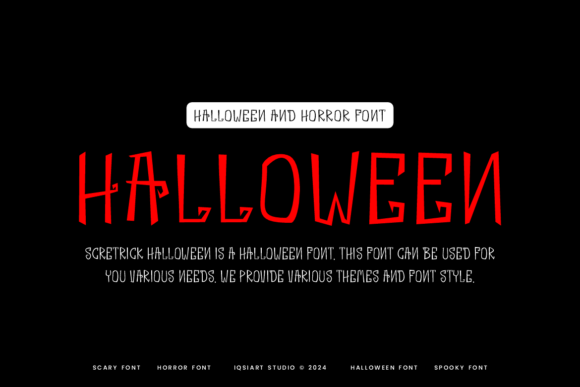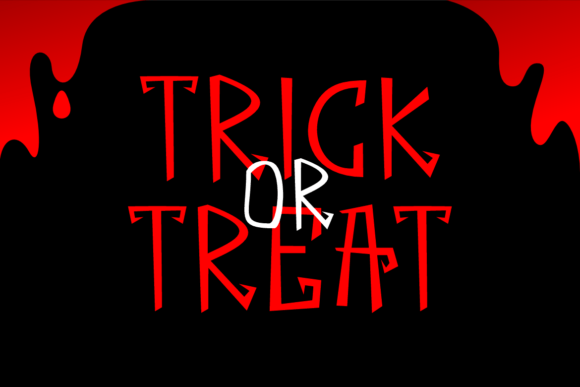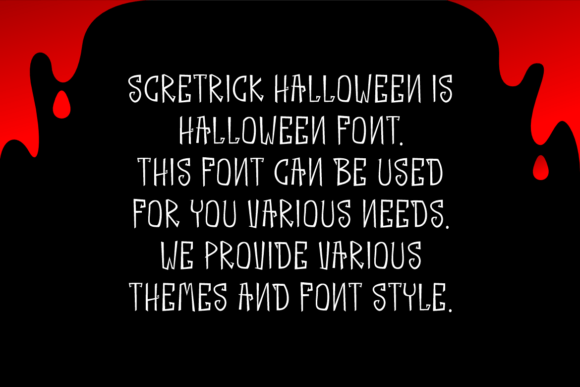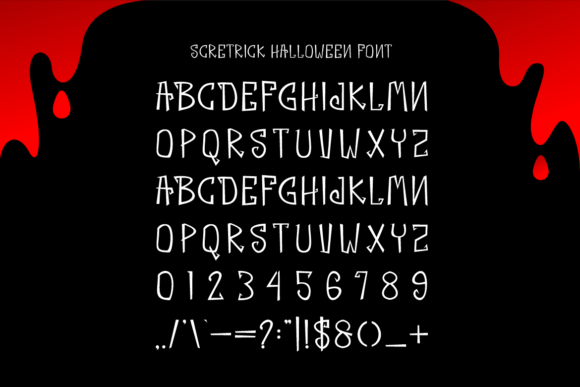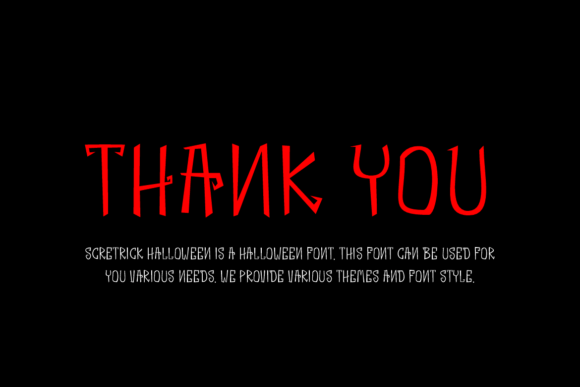
Introduction to Scretrick Halloween Font Font
Fonts play a crucial role in design, and the Scretrick Halloween Font font is a typeface that brings both character and versatility to any project. Whether you’re working on a branding project, a website, or a print design, the Scretrick Halloween Font font offers a unique style that can elevate your work.
Scretrick Halloween is a spooky and fun font with sharp, pointy ends on each letter.
Itβs perfect for Halloween designs, adding a creepy and playful look to your projects .
Key Features of Scretrick Halloween Font Font
Why Choose Scretrick Halloween Font Font?
The Scretrick Halloween Font font is more than just a typeface β it’s a design tool that helps you communicate your message with style and clarity. Its unique character set and versatile design make it suitable for a wide range of applications, from elegant invitations to bold headlines.
With its carefully crafted letterforms and balanced proportions, the Scretrick Halloween Font font ensures readability and visual appeal across all mediums.
What makes Scretrick Halloween Font font special?
The Scretrick Halloween Font font stands out with its unique design, exceptional readability, and versatility across various design applications.